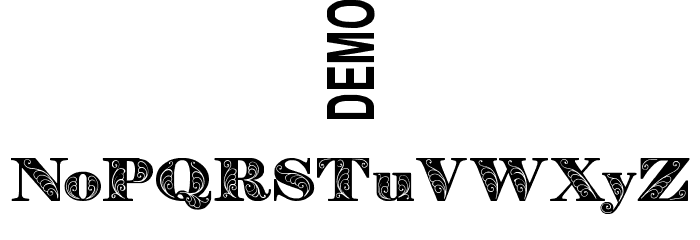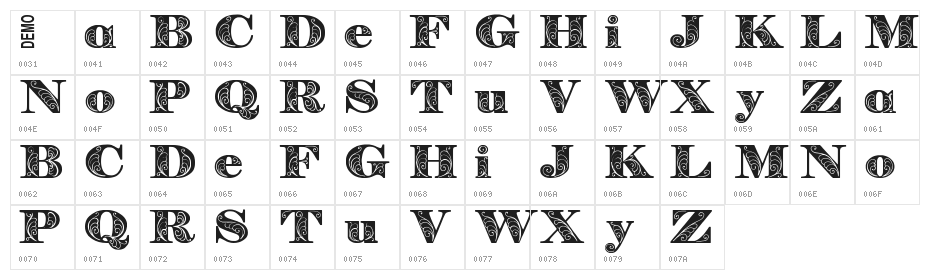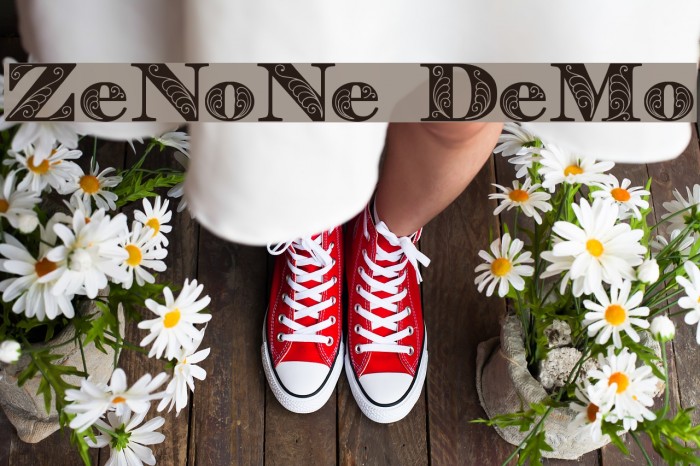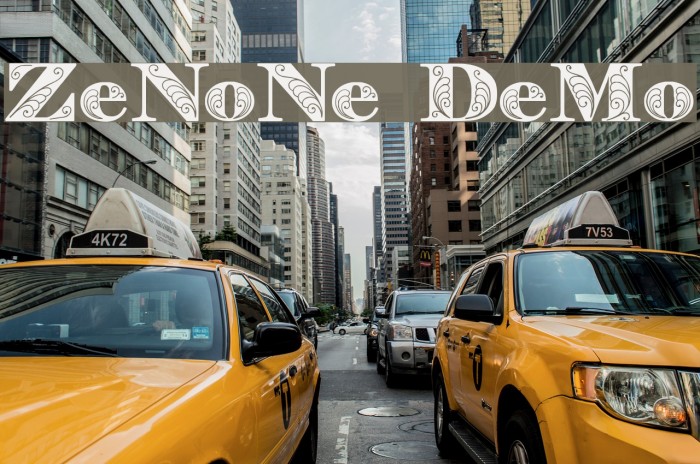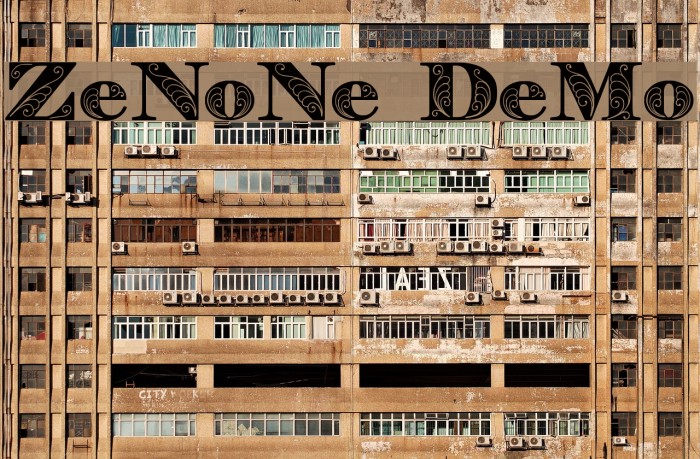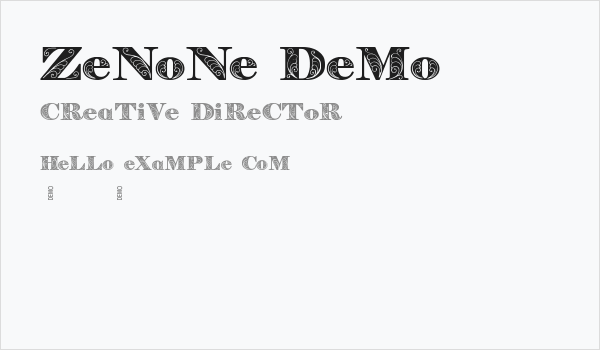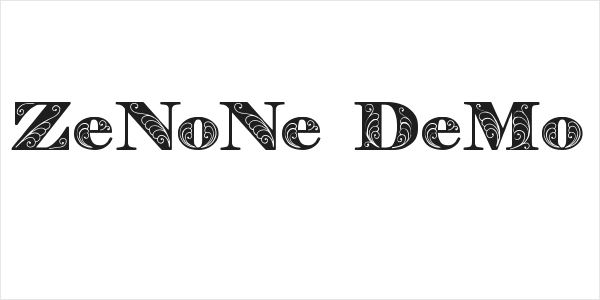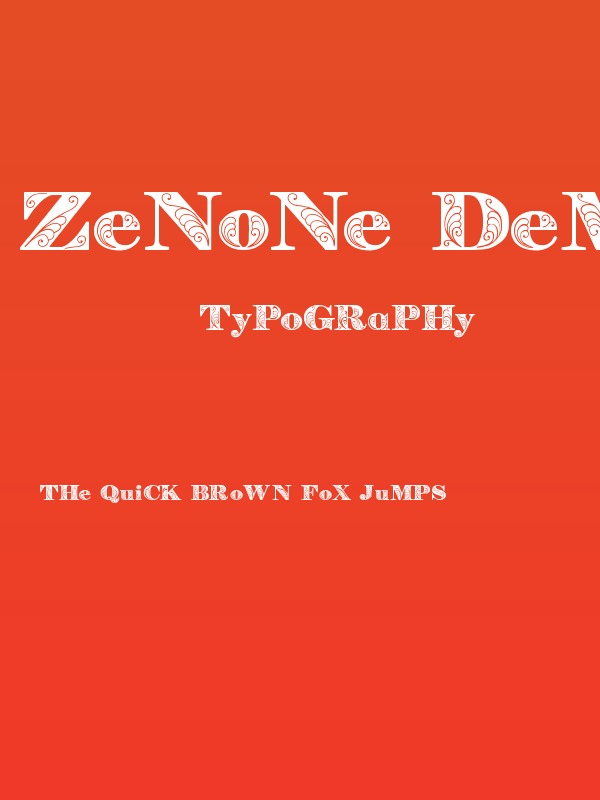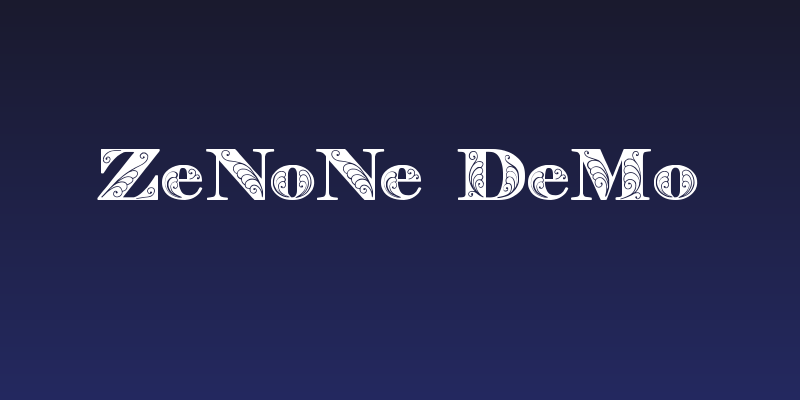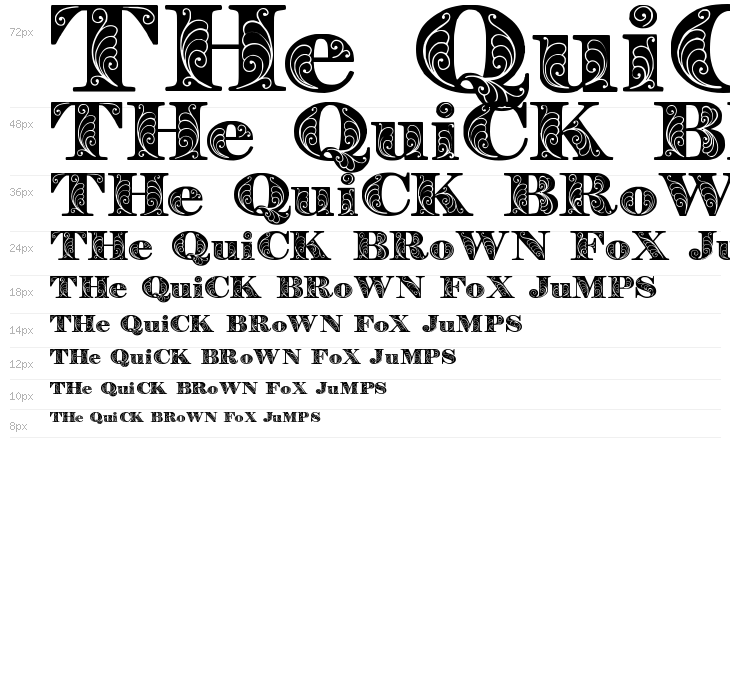
Zenone Demo Font
Zenone Demo Description
This font features a highly decorative and ornate style, characterized by intricate swirls and embellishments within each letterform. The uppercase letters are bold and commanding, while the lowercase letters maintain the same decorative elements, creating a cohesive and artistic appearance. The font's design is reminiscent of vintage or Victorian-era typography, making it ideal for projects that require a touch of elegance and sophistication. The characters are well-defined, with a consistent stroke width that enhances readability despite the elaborate details.
| Proposed Projects | This font is perfect for wedding invitations, vintage posters, branding for luxury products, and any design that seeks to evoke a sense of elegance and history. |